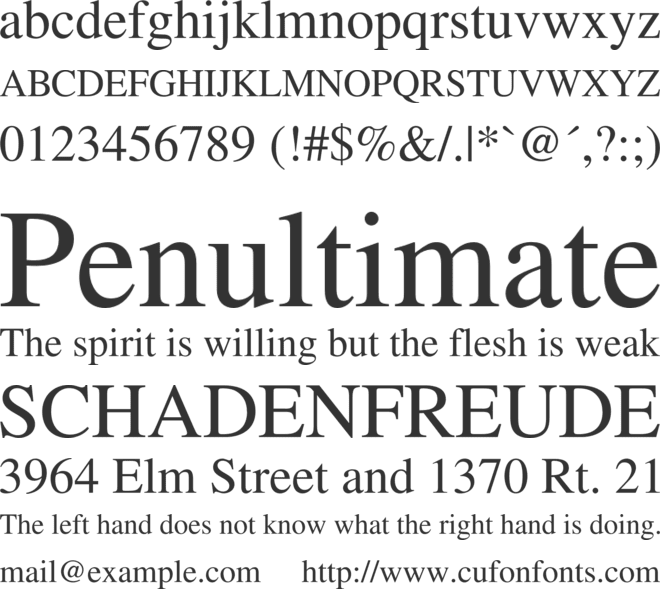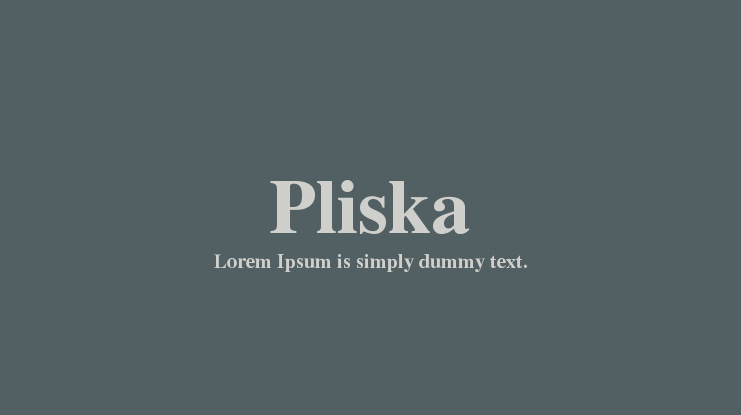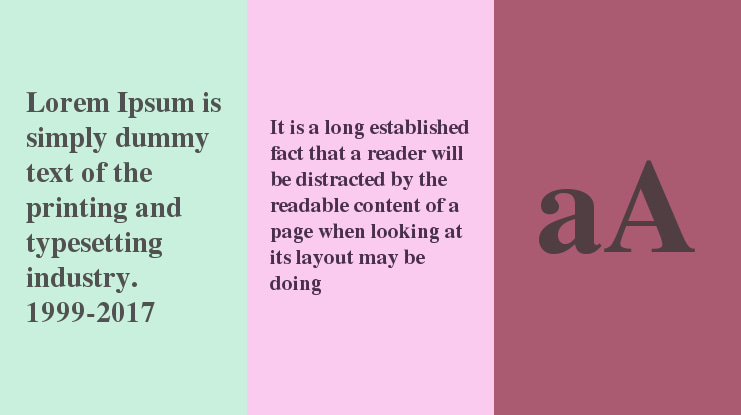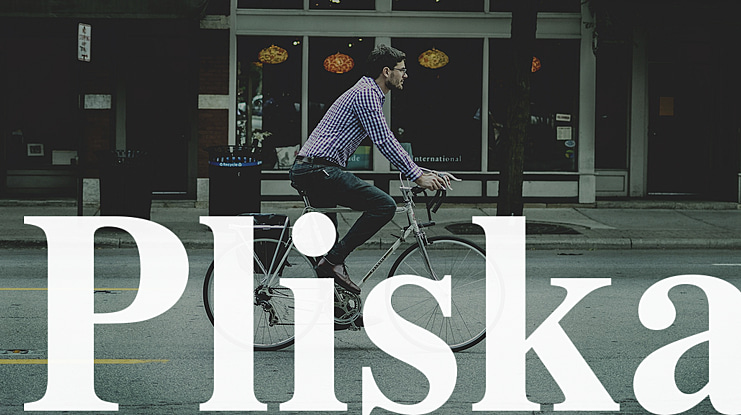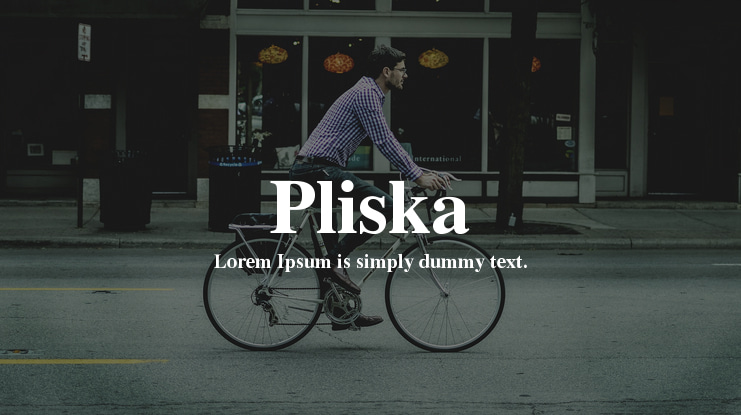
Pliska Font Package is modification of Tempora Font Package in the range of Cyrillic glyphs. The original Cyrillic glyphs (uni0410:uni044F) are included as *.locl glyphs. They could be used in Russian, Ukrainian and Serbian languages or through feature Stylistic Set 01 for any Cyrillic language. In the font family Pliska the Unicode range uni0410:uni044F consists of letter-form model known as Bulgarian Cyrillic (or better say – contemporary Cyrillic). The project 'Pliska Font Package' includes Pliska-Regular, Pliska-Bold, Pliska-Italic and Pliska-BoldItalic in OTF and TTF formats. The project is not completed. There will be more changes in the font family.
Changes in version 1.100 1. Full support for Serbian language through Style Set 02. 2. Full support for Macedonian language through Style Set 03.
28.07.2016 Updates in Pliska-Italic.otf: support for Serbian language through SS02, support for Macedonian language through SS03, some new glyphs in the font.